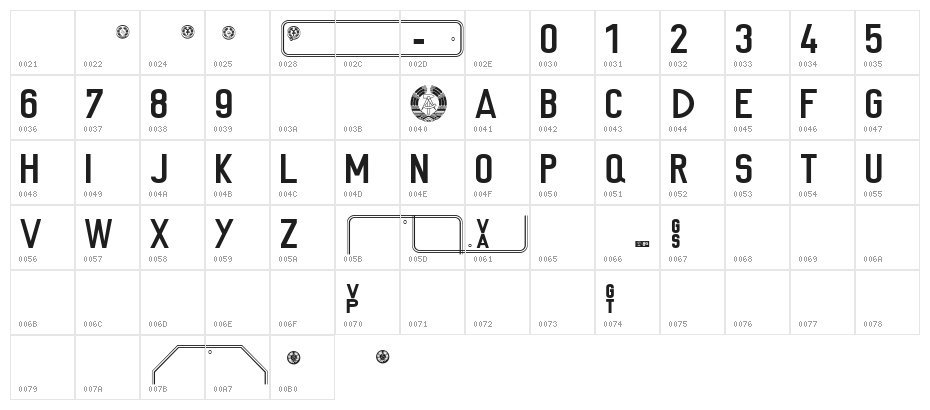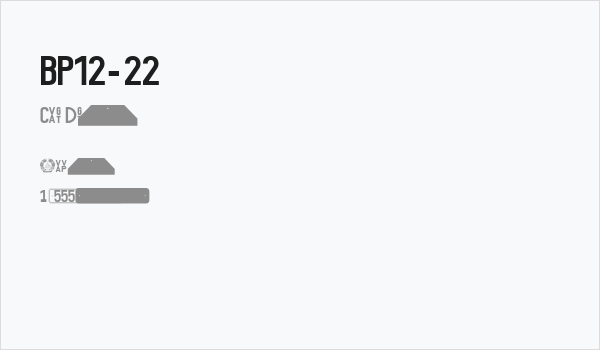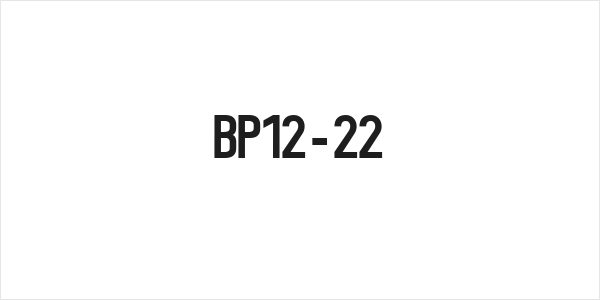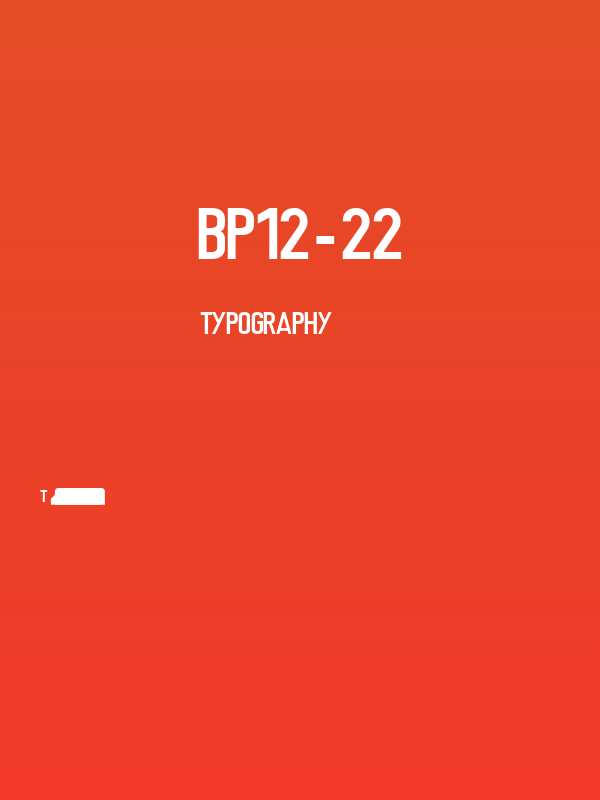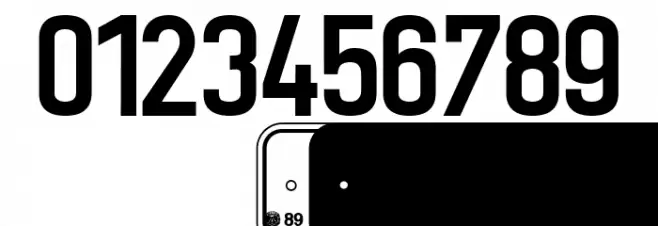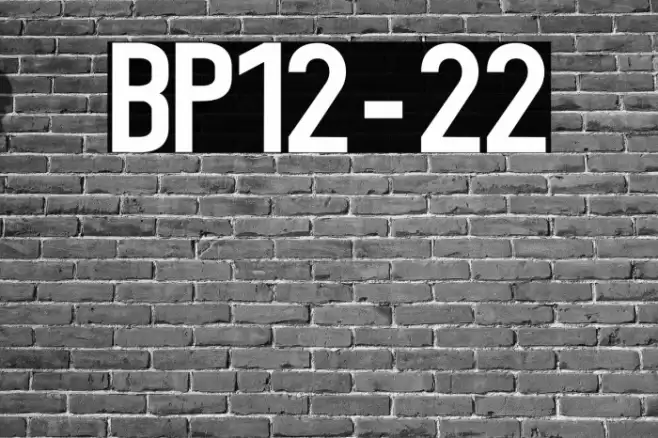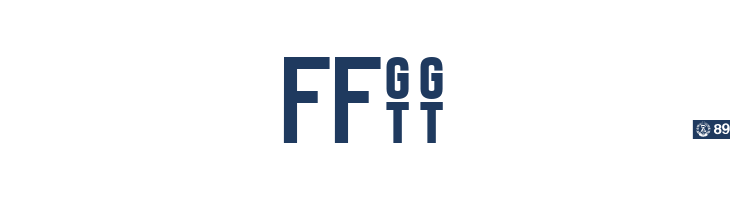
BP12-22 Font
BP12-22 Description
This font features a bold and modern sans-serif style with clean, straight lines and a geometric structure. The uppercase letters are uniform in height, creating a cohesive and balanced appearance. The numerals are similarly styled, maintaining the font's overall consistency. The characters are slightly condensed, allowing for efficient use of space without sacrificing readability. The font's strong presence makes it suitable for impactful headlines and branding. Its simplicity and clarity ensure that it remains legible at various sizes, making it versatile for both print and digital media.